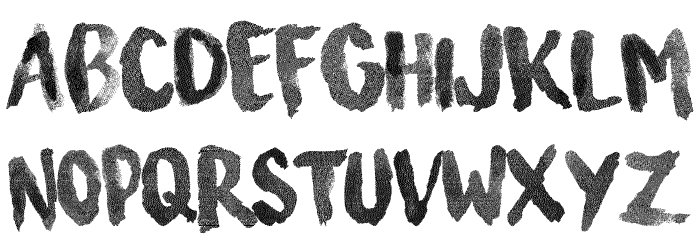
Surfing Capital Font
Surfing Capital Fonts is a Script and Brush font created by the branded quotes and released on March 1, 2016.
The tremendous desire for riding ocean waves inspired the Surfing Capital Font! Its textural effect works nicely with its organic and flawed shapes. It gives the letters a more artistic look. The only format accessible is ZIP. Brush and script are the two types of fonts available. You may also convert Web fonts directly from typefaces like Surfing Capital Font, which is a bonus. There are many similar fonts like Surfing Capital Font. Nathan Vintage Script Font, Humblle Rought Font Free, Nightamore Brush Font Free, Lyodra Vintage Monoline Script Font, Signatura Monoline Script Font Free are common standard fonts from those similar fonts.
Surfing Capital Font satisfies your desire for a vintage yet edgy look in your projects and images. The font is perfectly made for making varieties of wallpapers.